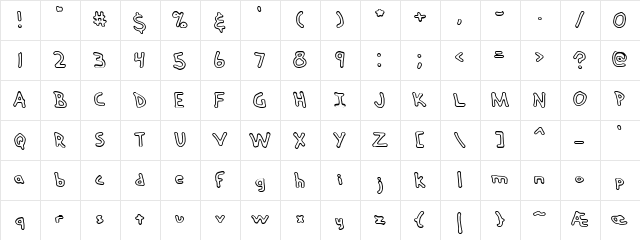
Hand Me Down O (BRK) Regular
Design Context for Hand Me Down O (BRK) Typeface
Hand Me Down O (BRK) flows with the natural rhythm of handwritten lettering, making it ideal for designs that call for warmth and personal expression.
Font Pairing: Combine Hand Me Down O (BRK) with a simple geometric sans for maximum contrast — the tension between flowing curves and clean structure is a classic typographic pairing.
Pro Tip: Pair Hand Me Down O (BRK) with a clean sans-serif for supporting text. The contrast between fluid script and geometric structure creates an elegant typographic hierarchy.